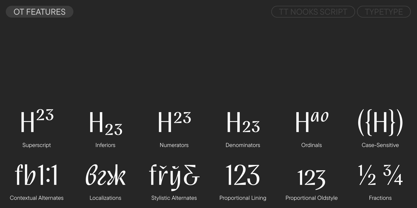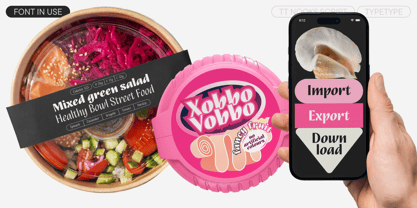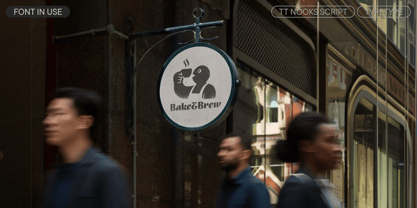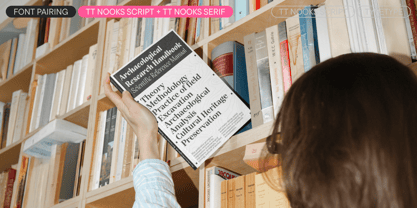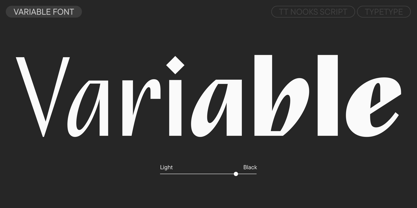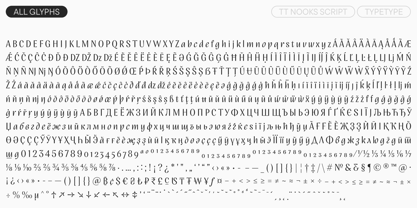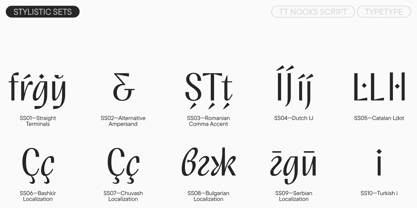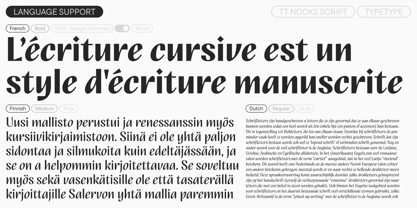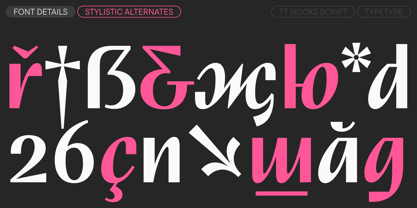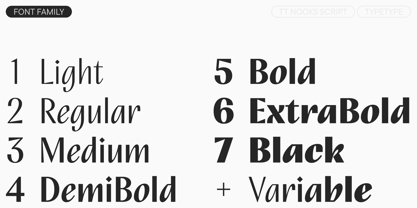
TT Nooks Script
Meet TT Nooks Script version 2.000! We have significantly updated the font: reworked the letter graphics while keeping the original idea, expanded the character set, and added new features, alternate glyphs, and languages.
TT Nooks Script features a unique design that has no direct analogs. It is an upright italic with references to the calligraphic tradition, built according to all the principles of broad-nib calligraphy. It has narrow proportions, high contrast, and an expressive character.
The uppercase characters look more static; they have a sharp character thanks to their pointed details. The lowercase forms are closer to a "classic" italic: they look dynamic, yet soft and rounded. The text also looks different in Cyrillic and Latin: Cyrillic has more interesting details, while the Latin looks calmer. The mood also changes across the font styles: the thin styles reveal humanist traits and artifacts characteristic of the continuous movement of a broad nib. In the bold styles, the text becomes very dense, and the rhythm becomes dynamic.
Among the font's distinguishing features are the unusual forms of its bowls and arcs. The terminals of several characters are very rounded and large. There are calligraphic forms. The diagonal strokes and crossbars are slightly "flared," which is especially noticeable in the uppercase characters. The punctuation and diacritics are large and diamond-shaped. All these details emphasize the unique design of TT Nooks Script, where calligraphic principles blend with design techniques.
In the updated version, we added four new font styles, including a variable font, and seriously expanded the character set: we supplemented the extended Cyrillic and Latin, expanded the main set of currencies (added the bitcoin, lira, rupee, som, sum, tenge, tugrik, and won), and added fractions and service symbols. The typeface also received new OpenType features, languages, and stylistic sets (for example, one with straight terminals, which truly shine in the bold styles).
TT Nooks Script is a display font that reveals itself most vividly in large and medium sizes. It is suitable for various tasks: packaging design, book and magazine covers, posters and playbills, branding, and web use.
- 8 font styles: 7 upright ones and 1 variable font
- 773 glyphs in each style
- 24 OpenType features
- 10 stylistic sets
- Support for over 230 languages